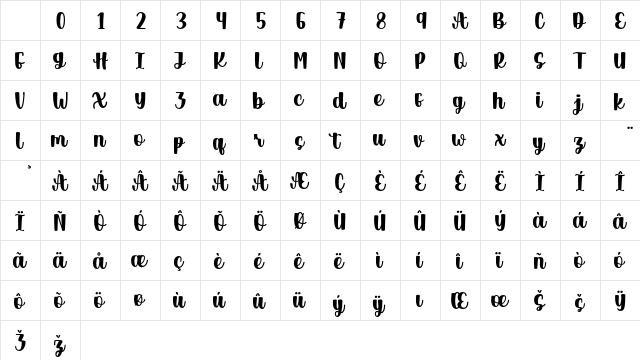
Complete Delicious Burger Regular glyph index. Displaying only characters natively supported by Delicious Burger Regular font.
Delicious Burger is a composed and adaptable typeface that performs quietly and consistently across a wide range of design contexts.